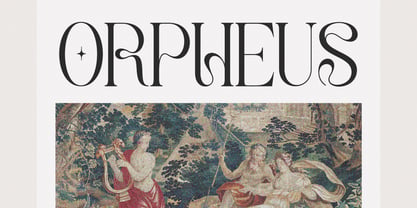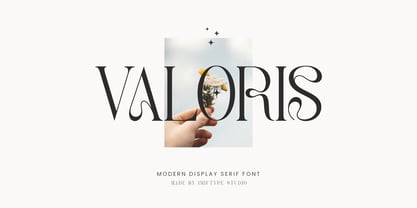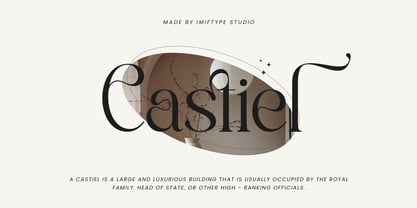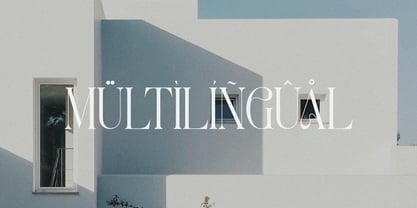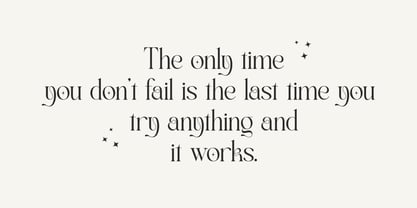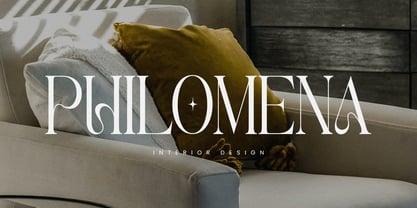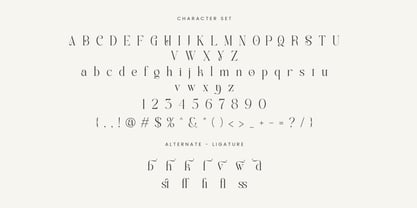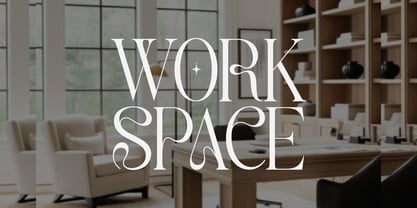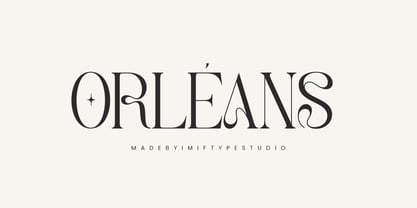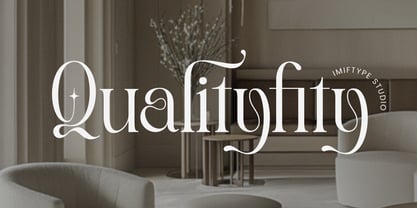
Valoris
by Imiftype Studio
The Valoris Font Family was designed by Imiftah Nurnazarudin and published by Imiftype Studio. Valoris contains 1 styles. More about this family
Valoris is a modern display serif font crafted to deliver elegance, contrast, and a strong visual identity. Featuring refined serifs, stylish curves, and decorative details, Valoris creates a sophisticated look that feels both modern and timeless.
This font is perfect for logos, branding, editorial layouts, fashion designs, magazines, posters, headlines, packaging, and premium visuals. Its display character makes it ideal for titles and statements that need to stand out while maintaining a clean and classy appearance.
Valoris blends classic serif foundations with modern aesthetics, allowing designers to create bold yet graceful typography. Whether used for luxury branding, minimalist layouts, or artistic compositions, this font adds personality, balance, and editorial charm to any project.
Designed with attention to detail and readability, Valoris is a versatile serif font suitable for both digital and print applications.